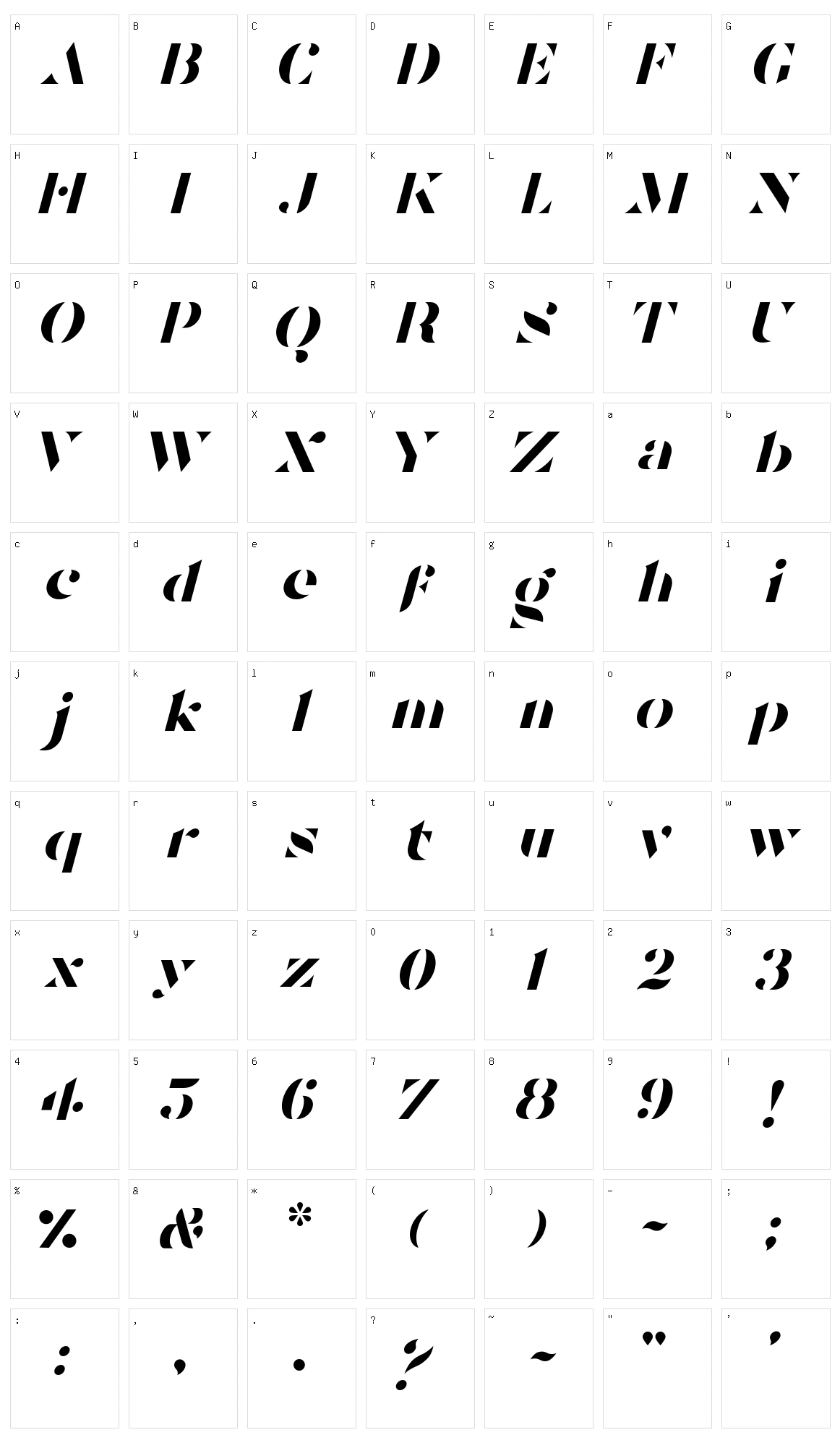
The free font Tostada is carefully designed by Iván Núñez, showcasing a thoughtful balance of creativity and usability and falls under the Retro font style. When you download the ZIP file, it contains only 70.17 KB of font files, making it lightweight and quick to download. Please review the license details below to understand permitted usage and distribution rights. If license information is not available, we recommend using this font for personal projects only or contacting the author directly for commercial usage permissions.